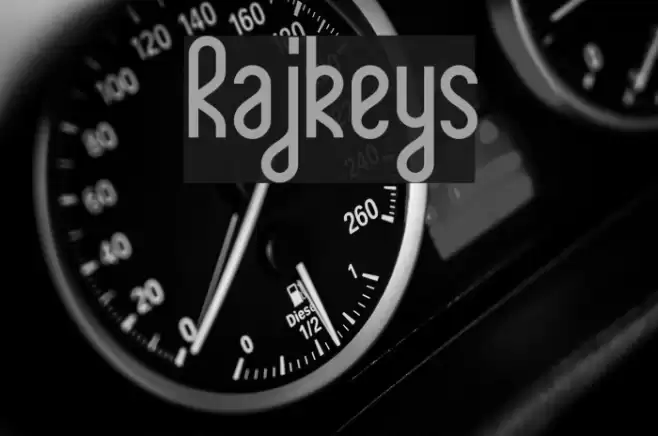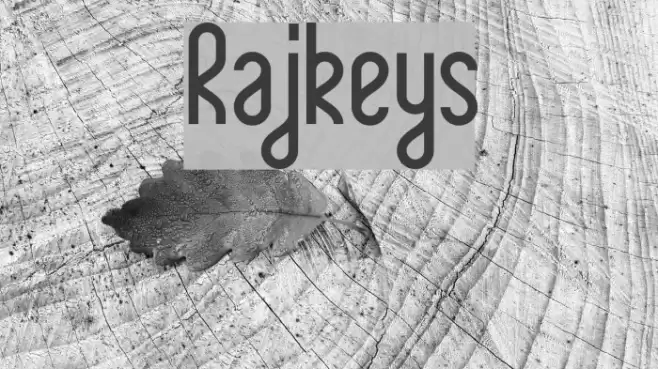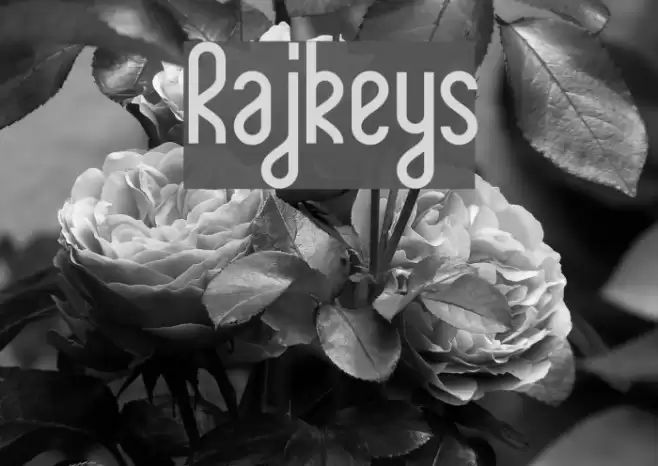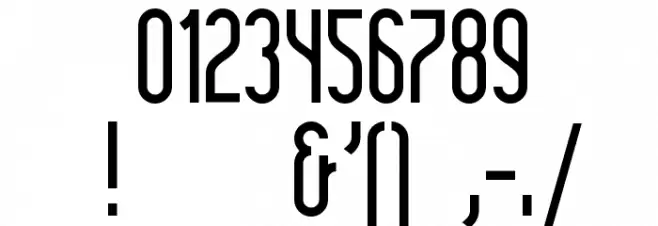
Rajkeys Font
Rajkeys Description
This font features a modern and geometric design with clean, straight lines and rounded edges. The uppercase letters are tall and narrow, giving a sleek and elongated appearance. Lowercase letters maintain a consistent height, complementing the uppercase with a slightly softer touch. Numbers are uniform in width, ensuring readability and balance. The special characters are distinct and match the overall geometric style, making them easily recognizable. This font's uniform stroke width and minimal contrast contribute to its contemporary and professional look.
A modern, geometric font with clean lines and rounded edges from Uncategorized fonts.
- Proposed Projects: Ideal for branding, advertising, and digital media projects where a modern and sleek appearance is desired.
- Use Case: Headlines, Logos, Digital media